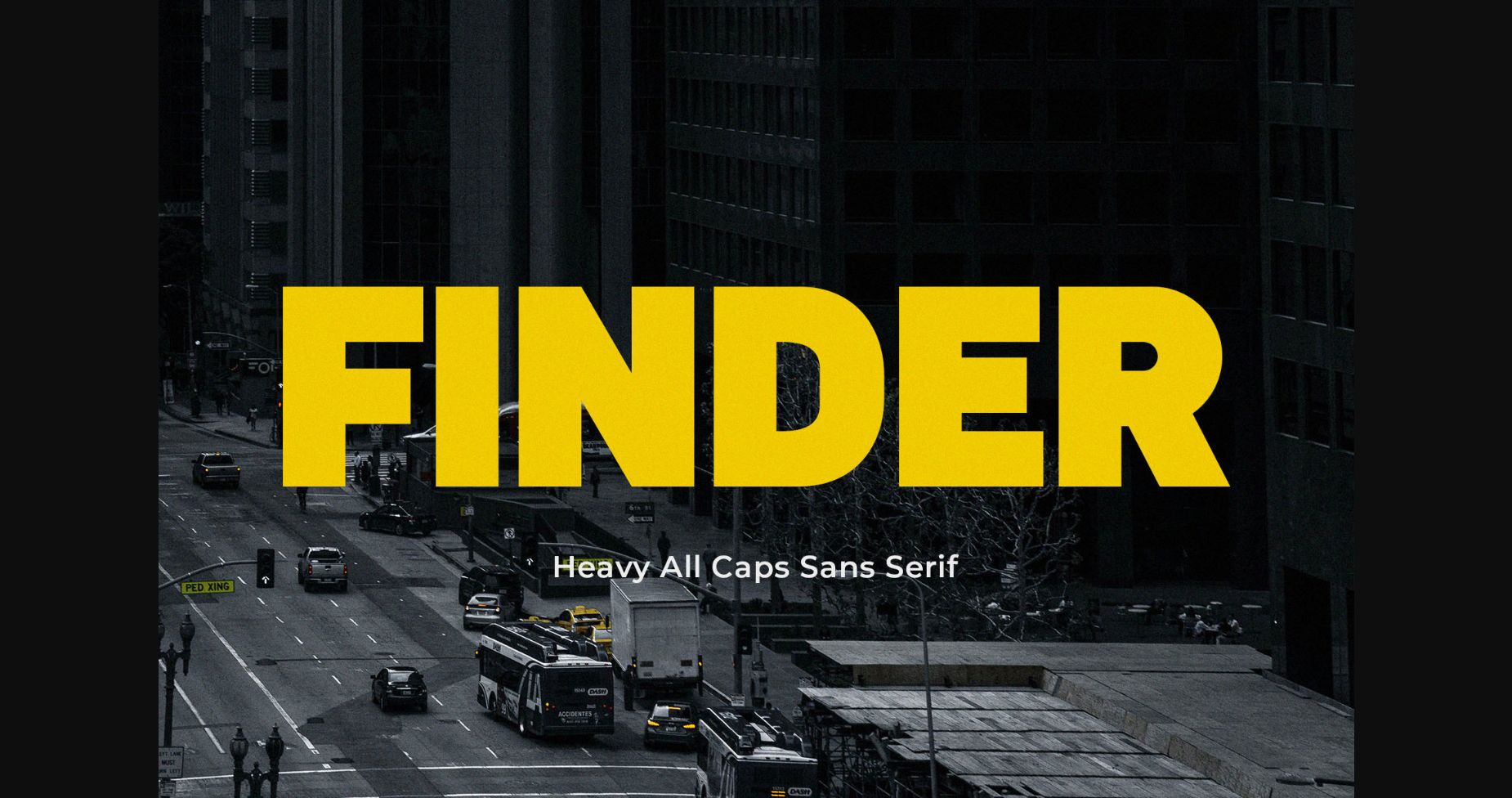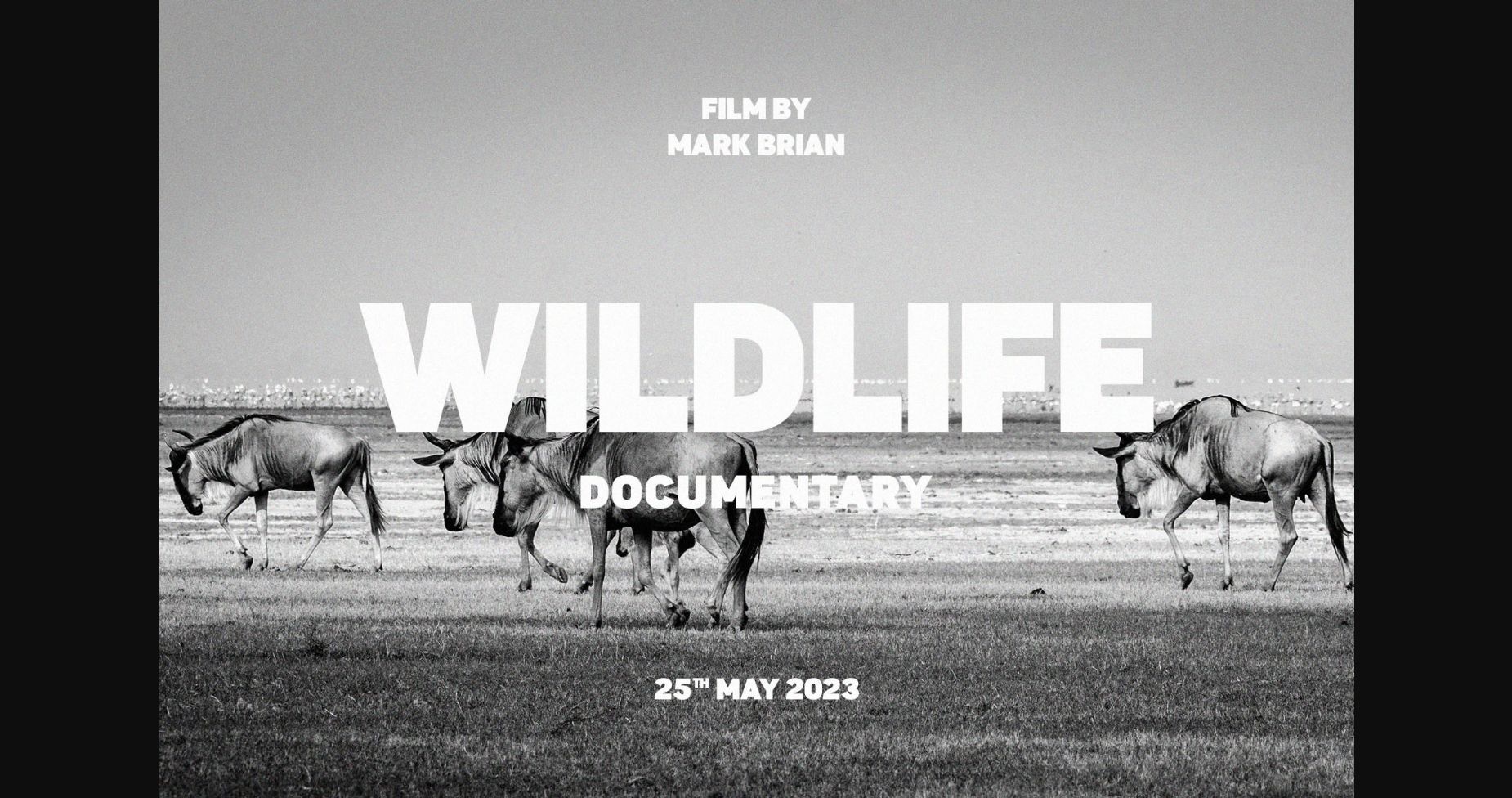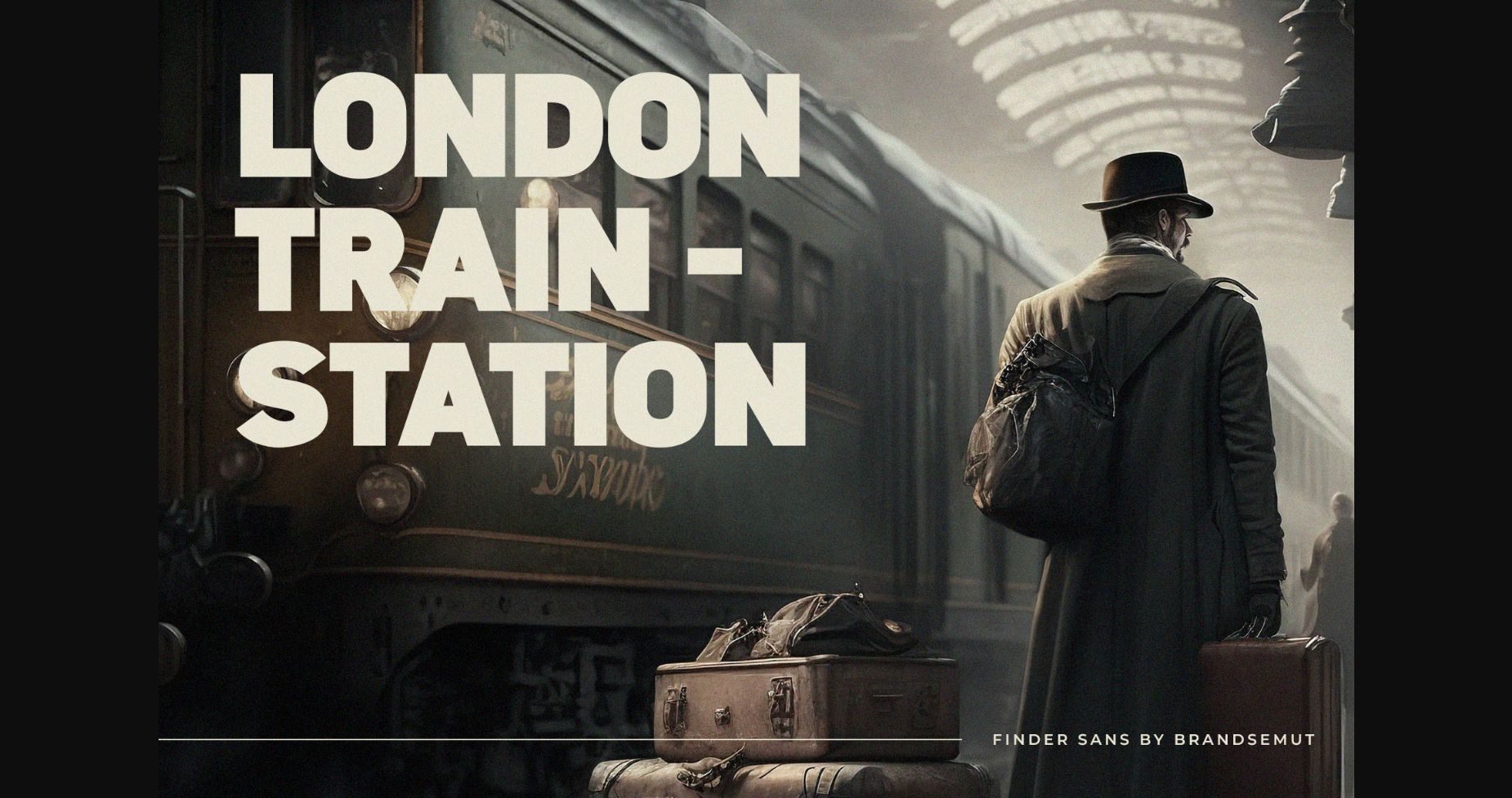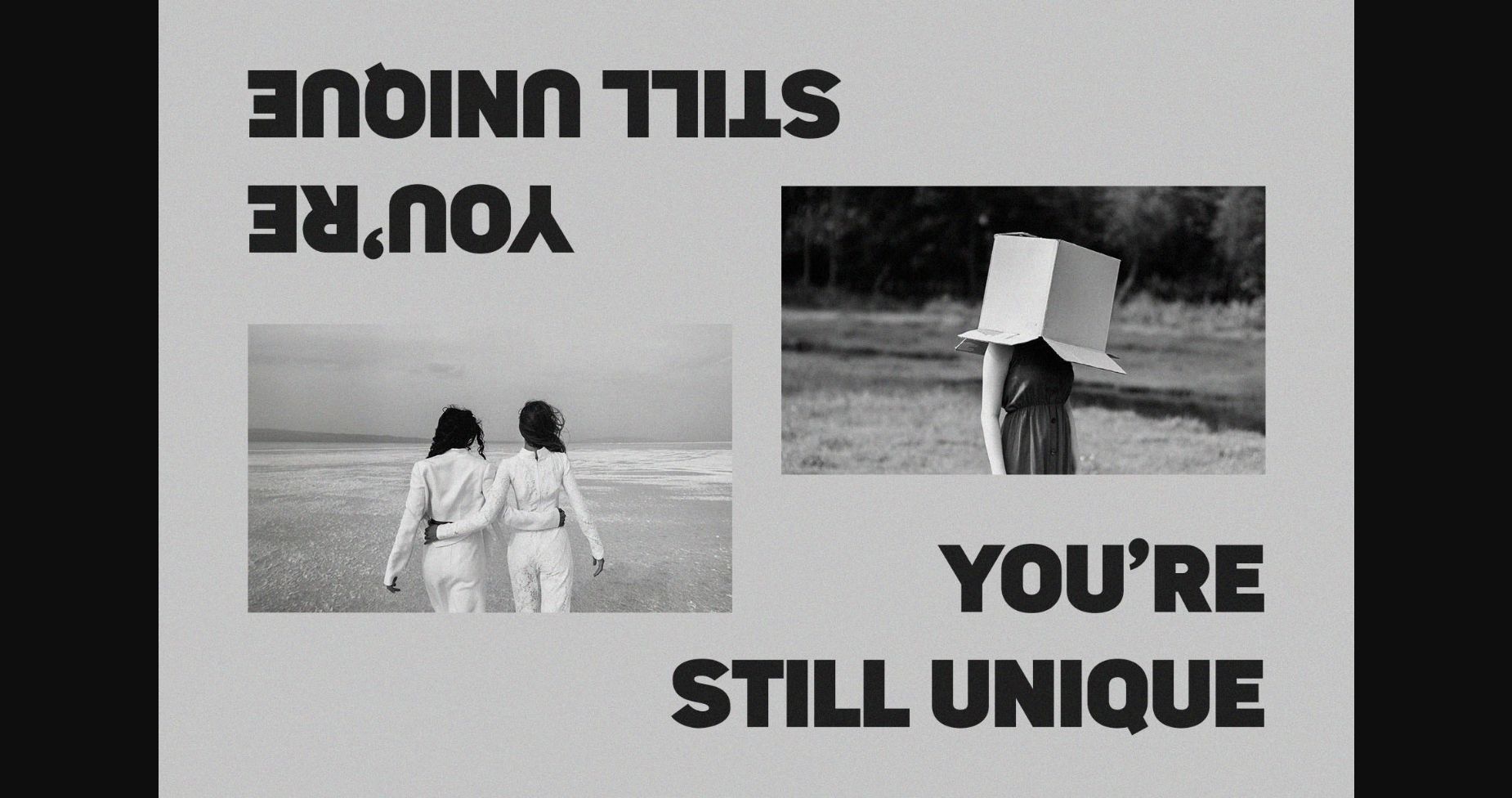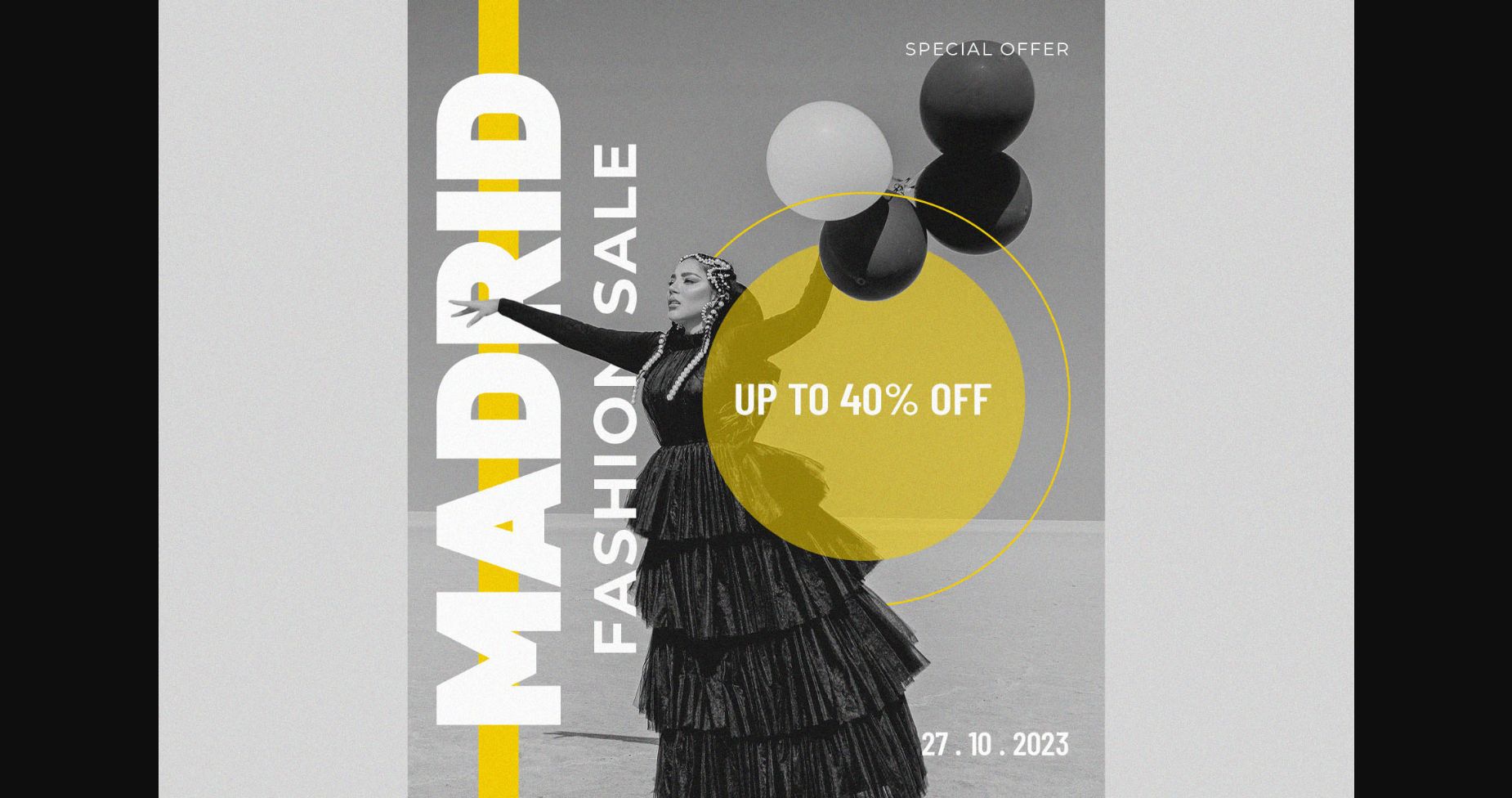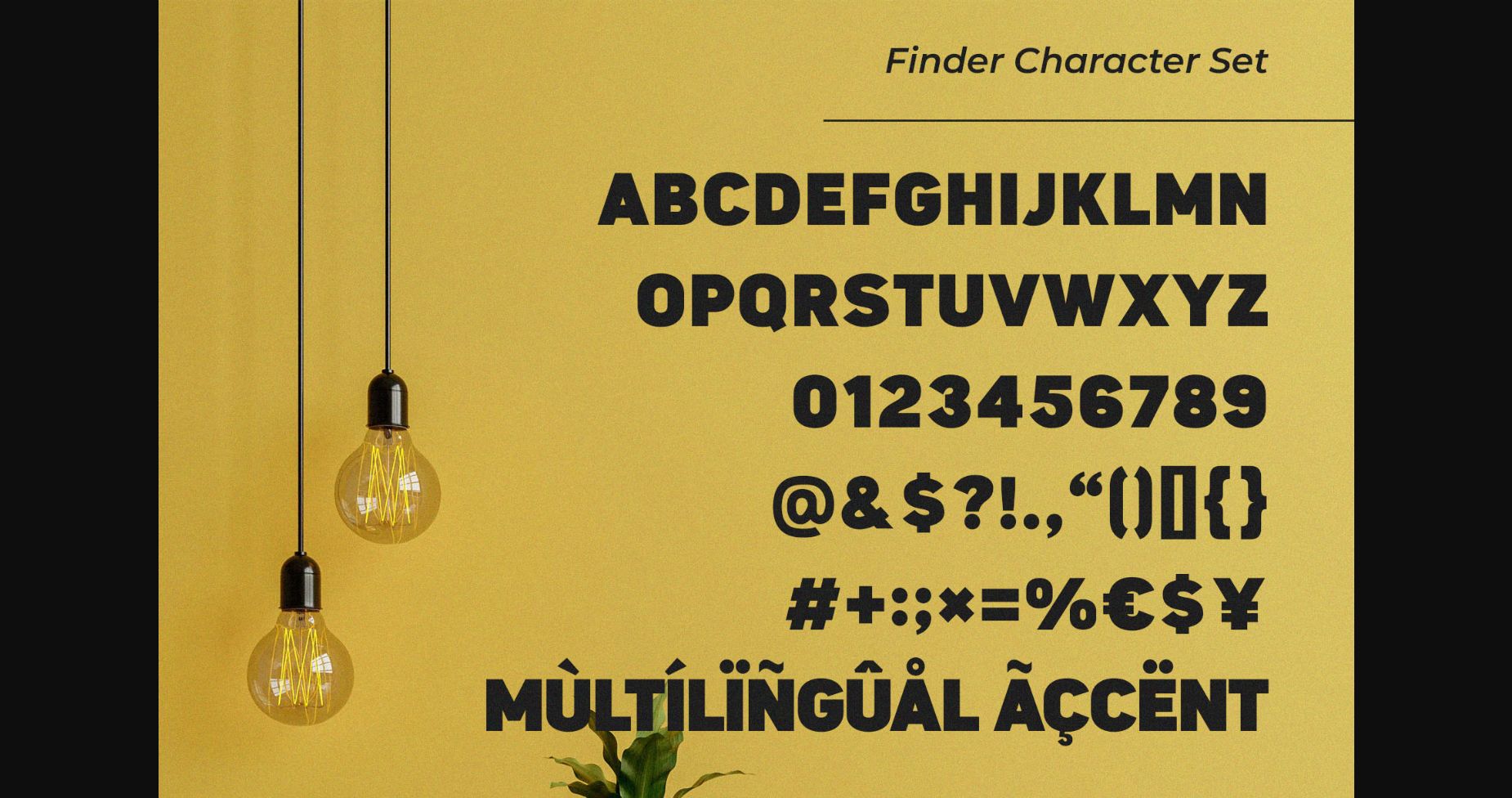
Finder Font
About Finder Font
Finder is a cool and modern sans serif font. Bold and daring, this font is perfect for product packaging, t-shirt designs, headlines, posters, and more!